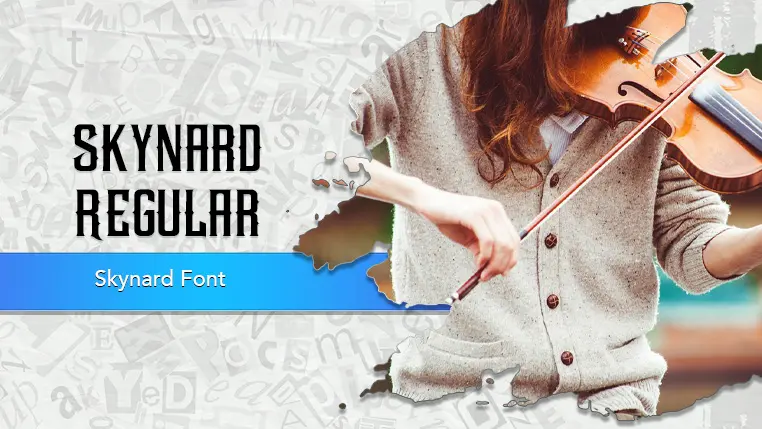
The Skynard font family may be ideal for you if you enjoy working on an artistic design project. The lively, expressive look of this typeface, which was created by Robbo, makes it ideal for Album Covers and Music Branding, Concert Posters and Event Flyers, Merchandise Design, Themed Restaurant/Bar Signage, Short Film Titles/Openers, Editorial Design (Feature Titles) and other light-hearted visual projects.
Regular are the one primary font styles of the Skynard font family. You may build dynamic, visually appealing text layouts with the distinct flair that each style offers. With crisp, readable lines and a relaxed tone.